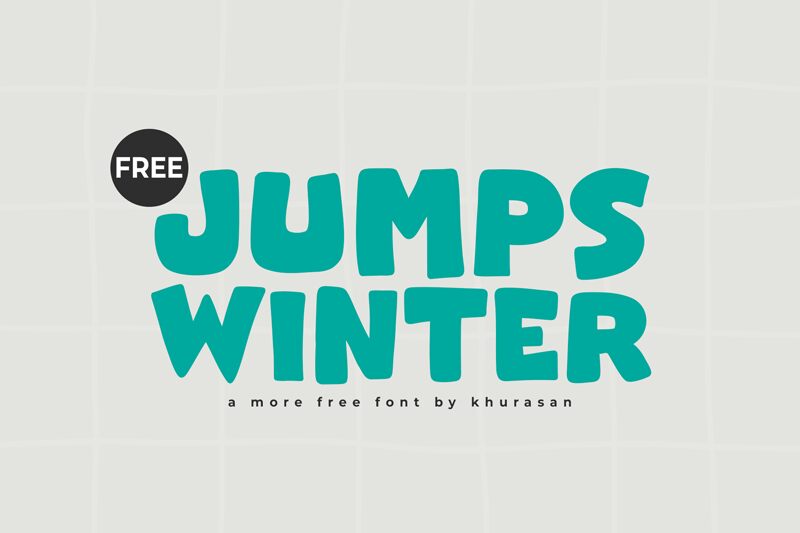
Jumps Winter font family by Khurasan™ is a freeware typeface in cartoon style. This free font has an eye-catching innovative appearance with snappy visual elements. It is very friendly, modern, and approachable meaning it can attract clients and audiences instantly. It feels vibrant, suits informal contexts, engages youthful audience members, and fits in well with modern designs.
Jumps Winter is versatile for branding, logos, advertising, magazine covers, futuristic design, gaming, movie posters, websites, and apps. The casual look is suitable for invitation cards as well as ad banners, packaging, and product design projects.